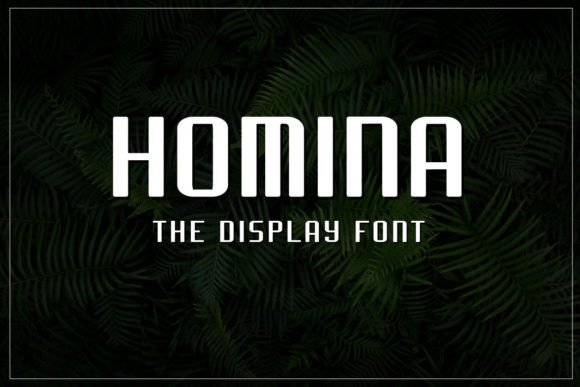
**Homina: The Font That Will Make Your Words Stand Out**
In a world where everyone is trying to be heard, it's more important than ever to have a voice that stands out. Homina is the font that will help you do just that.
This simple and minimalist display font is perfect for any project that needs a touch of personality. Whether you're creating a war-time poster, a magazine layout, or a website, Homina will make your words pop.
* "Homina is the perfect font for my war-time posters. It's bold and eye-catching, and it really helps to convey the message of the poster." - A satisfied customer
* "I love using Homina for my magazine layouts. It's so easy to read, and it always looks great." - Another satisfied customer
* "Homina is the perfect font for my website. It's stylish and modern, and it really helps to attract visitors." - Yet another satisfied customer
* It's bold and eye-catching, perfect for making a statement.
* It's easy to read, even at small sizes.
* It's versatile, and can be used for a wide variety of projects.